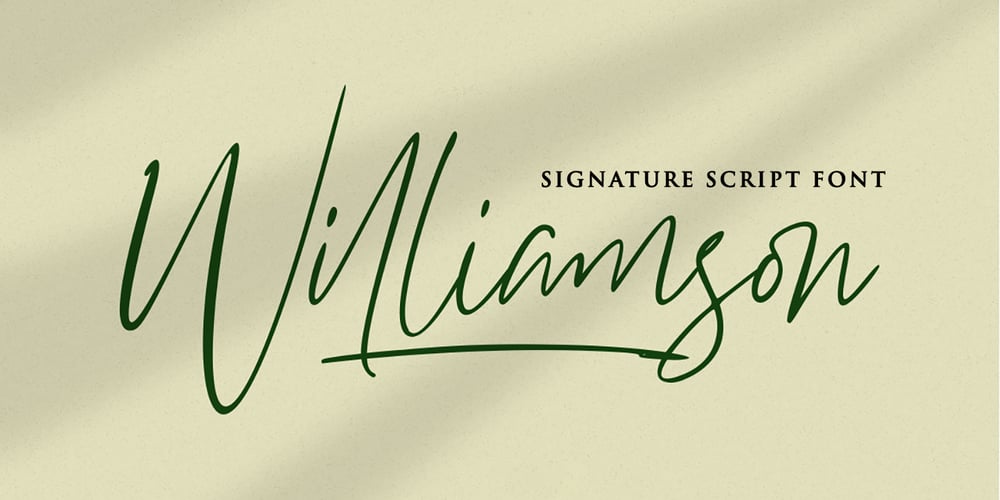
Williamson
Williamson font
Williamson Font Family was designed by Virgiawan Listanto and published by Stringlabs Creative Studio. Williamson contains 2 styles and family package options. Williamson is a luxurious and playful script with a contemporary vibe. Get inspired by its minimalist elegance. Williamson Path is a flowing and elegant handwritten font, created with the help of a brush pen. Get inspired by its unique and beautiful style and add it to your favorite designs!